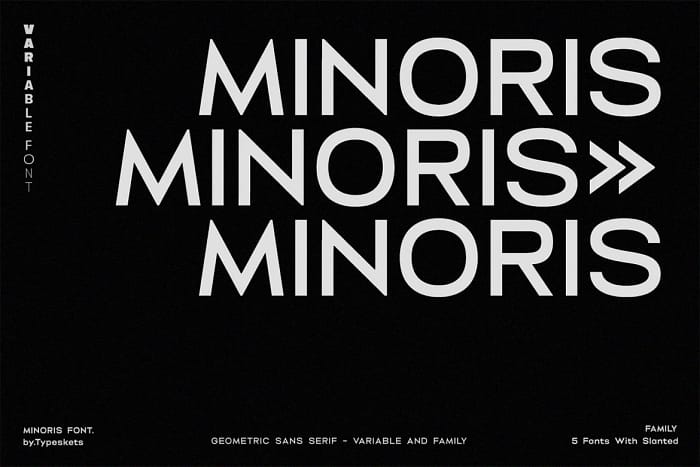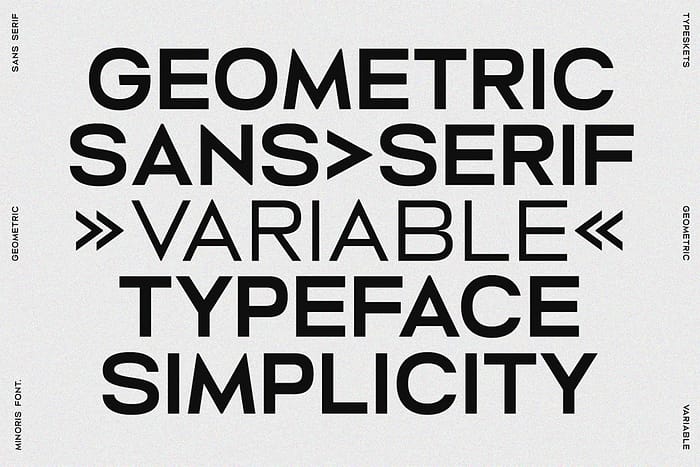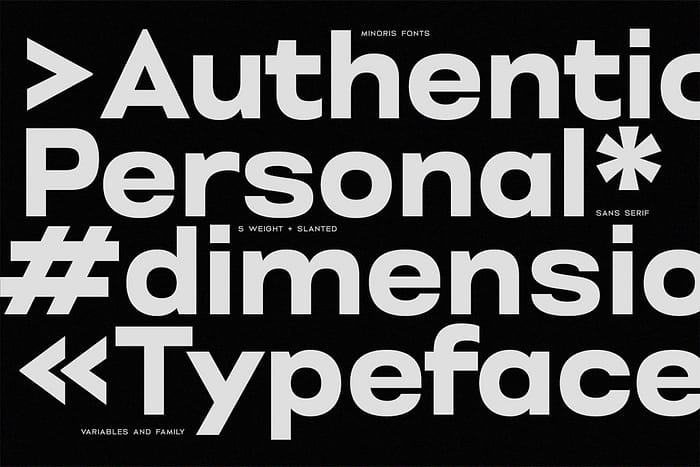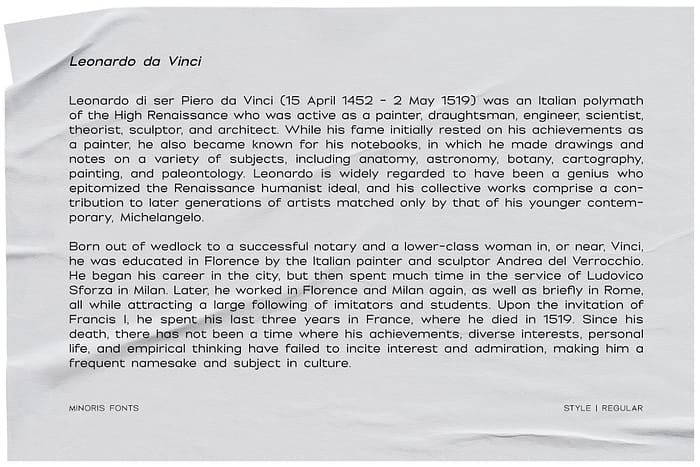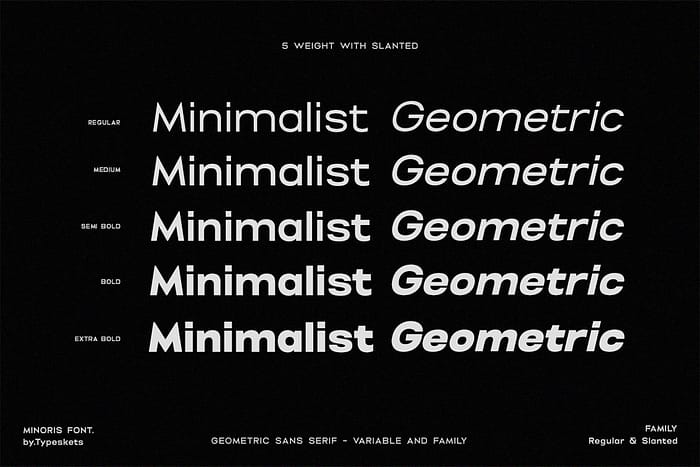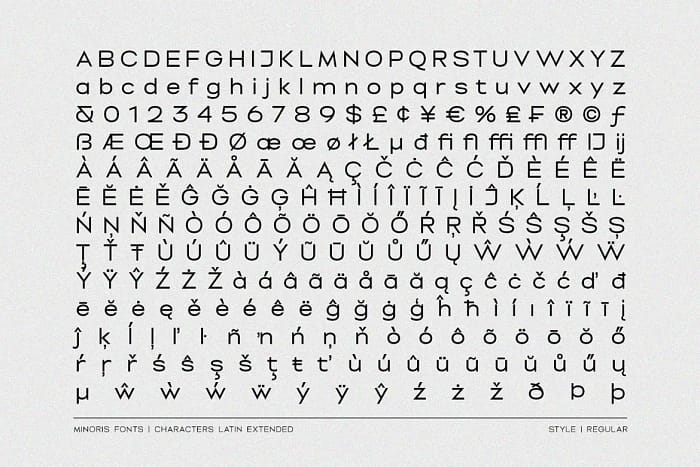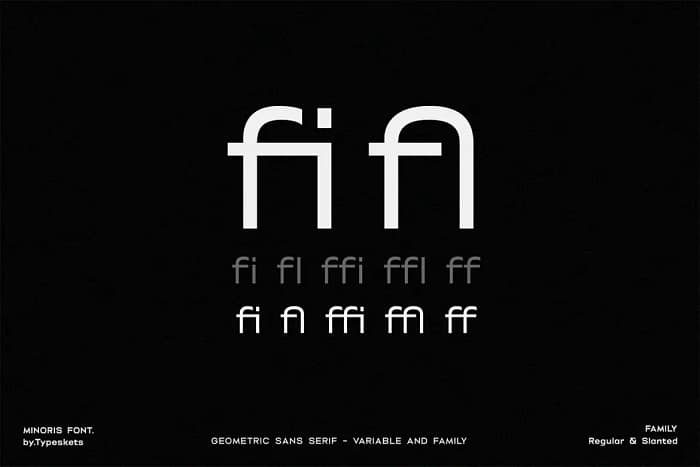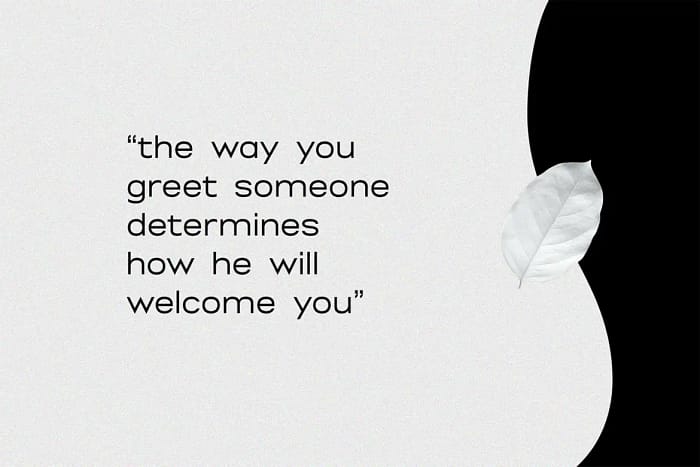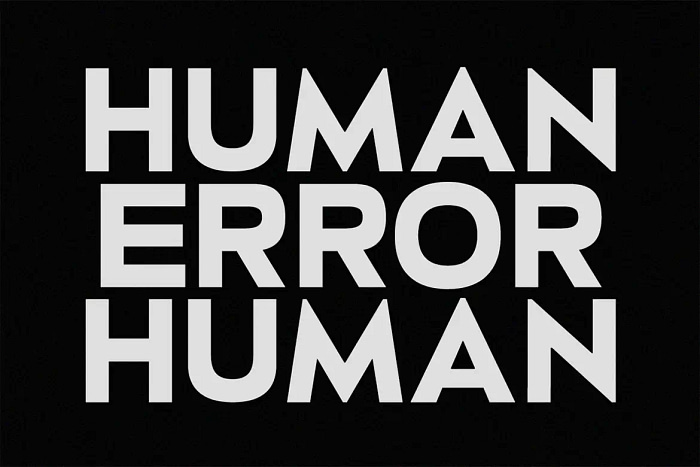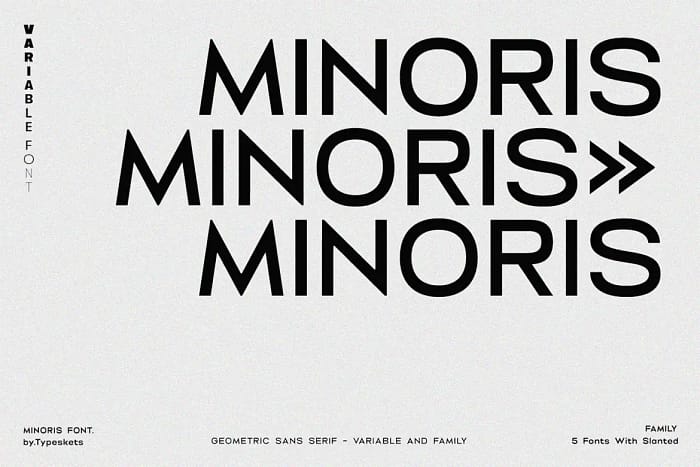
Minoris is a Geometric font in the sans serif category with 10 styles or 5 weights with Oblique, this font is also included in the Variable font, so you can adjust the size according to the weight of this font according to a certain variable range using software like Adobe, I made it by drawing geometric shapes in every letter that has a minimalist and simple impression, is perfect for helping you create minimalist-style editorial designs, this font is also suitable for making typography designs, posters, logotypes, and many other designs that you can make with this font
- Minoris Variable with Oblique version
- Latin Extended characters accents